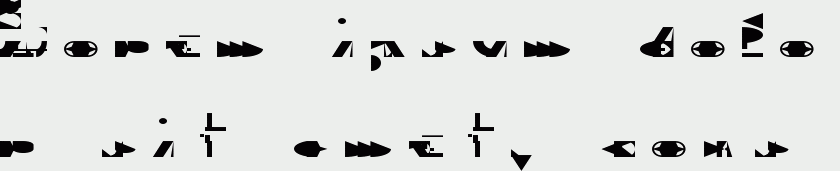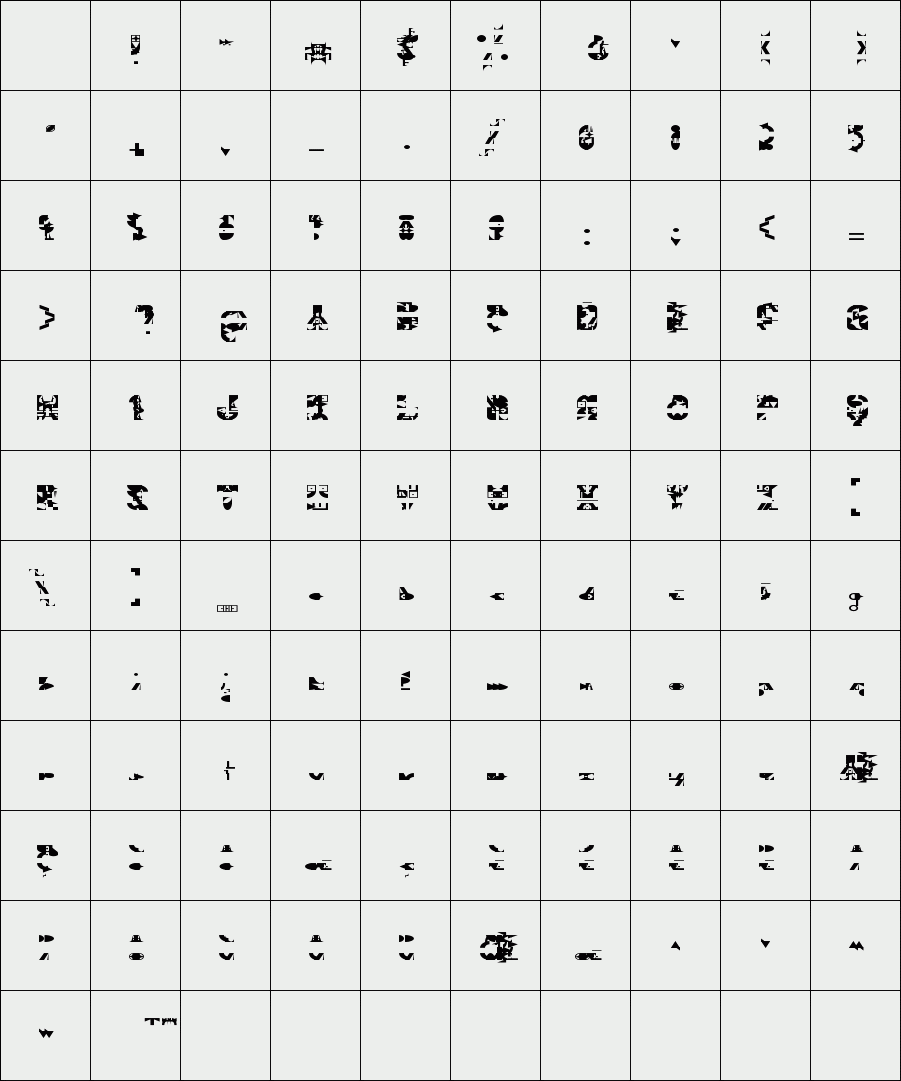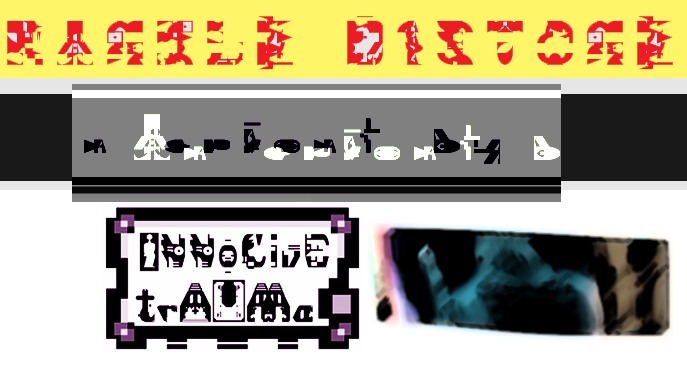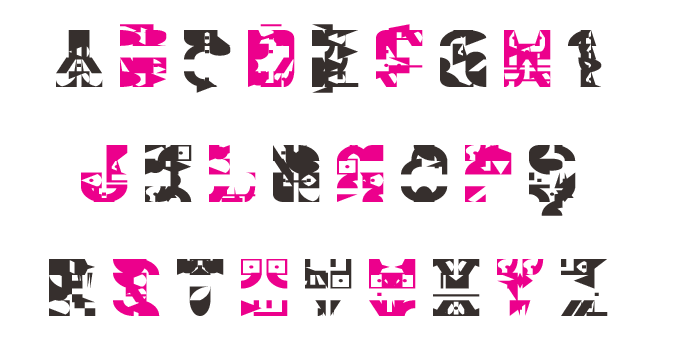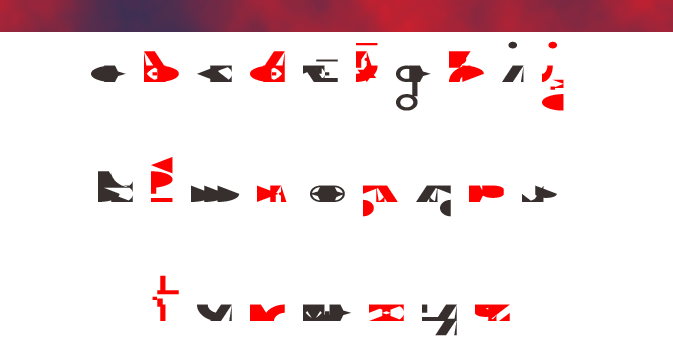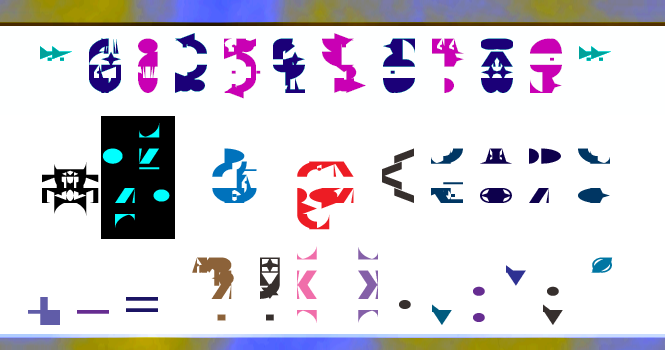
trAUMa 114 / Rankle Distone
"Rankle Distone", like all the "trAUMa" series, works at the frontier between Art & Type Design, Figuration & Abstraction, each font is a comprehensive world in which every glyph is a "living" entity. But put together they can produce your messages in the most accurate way.